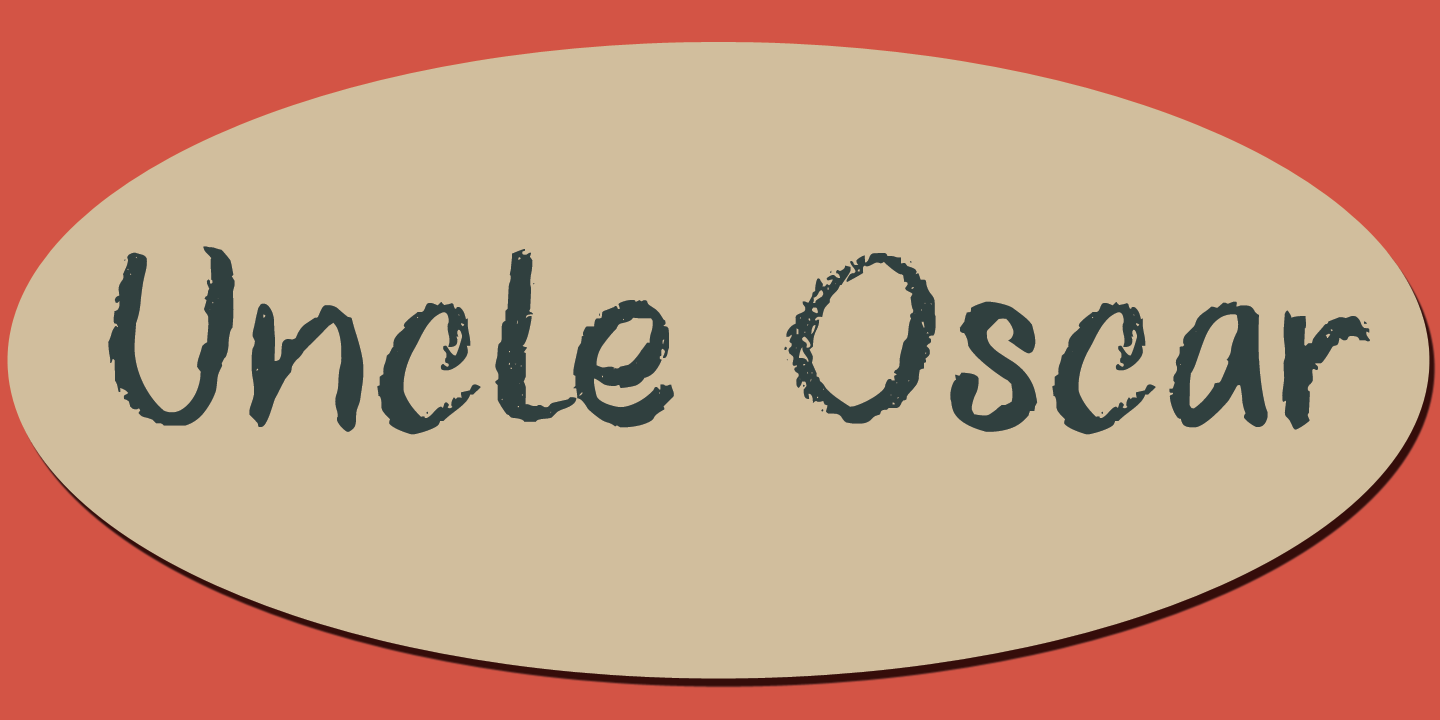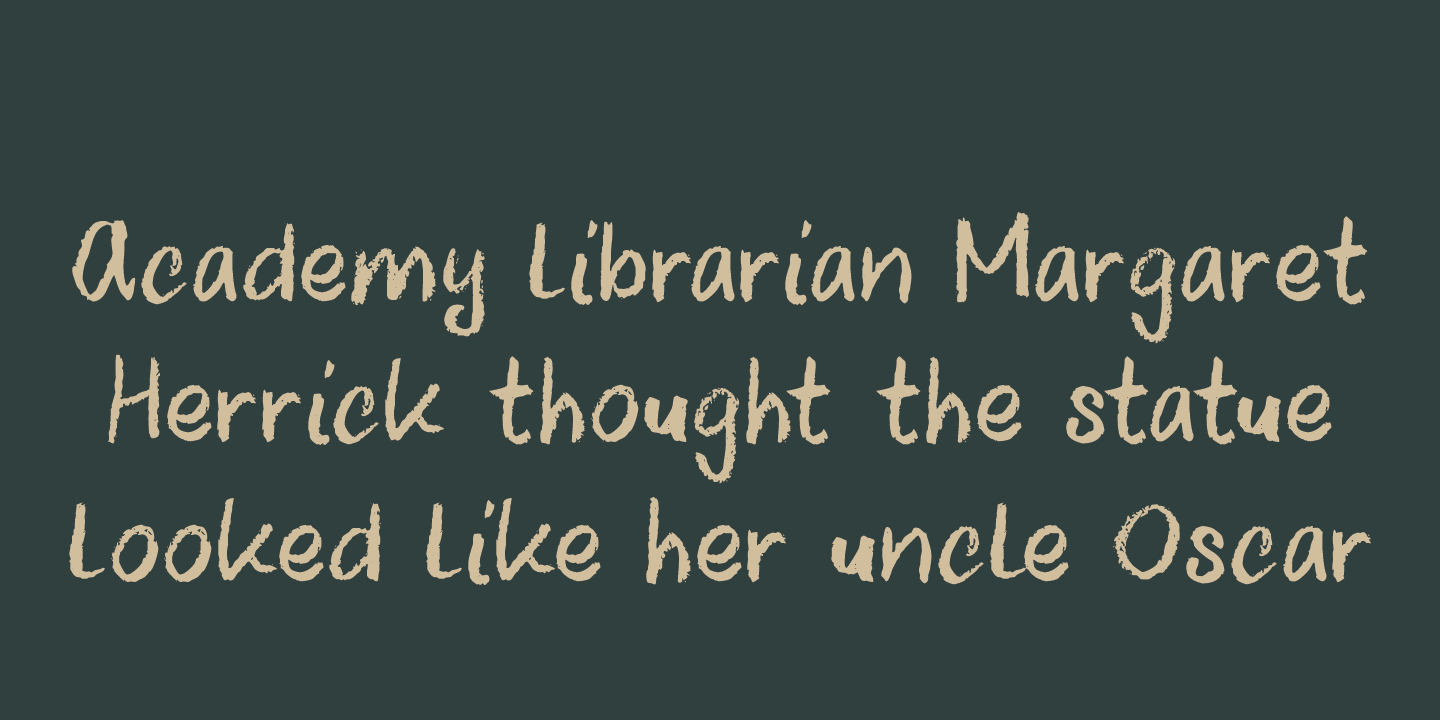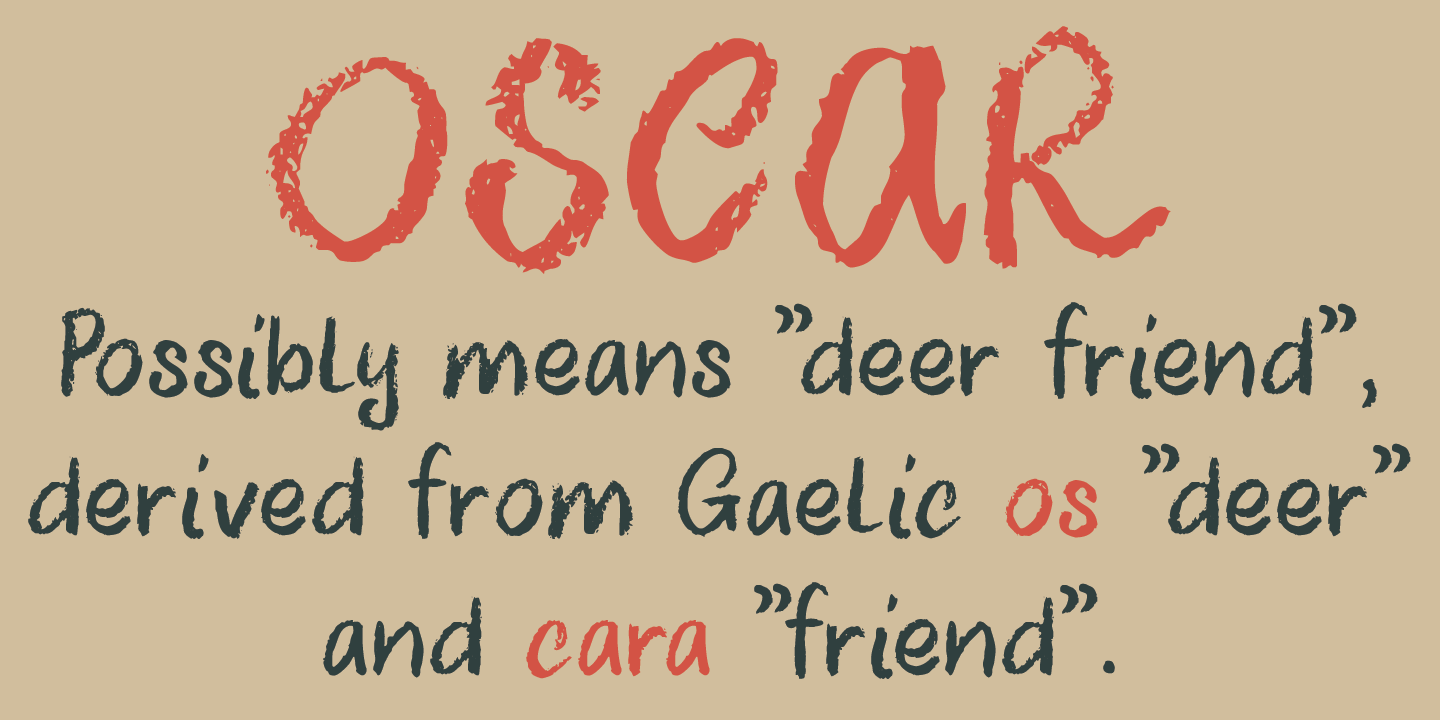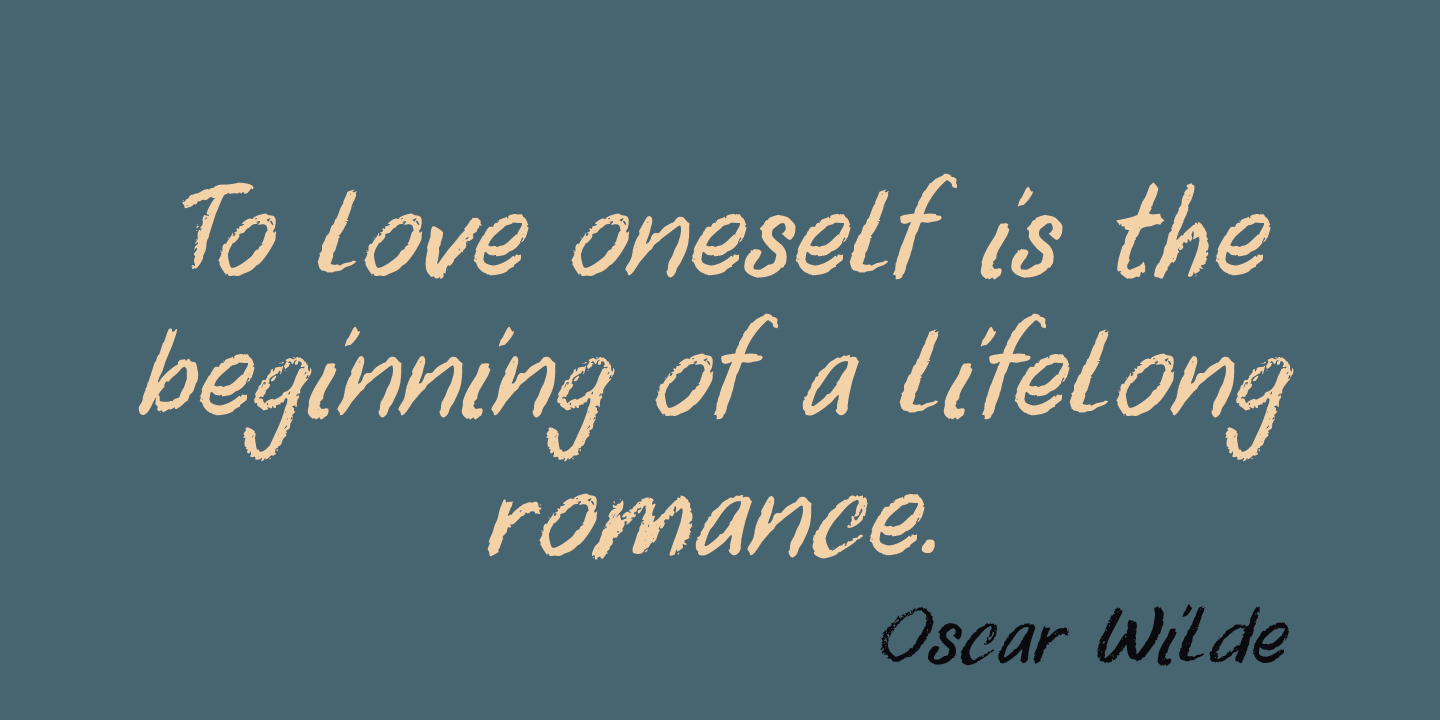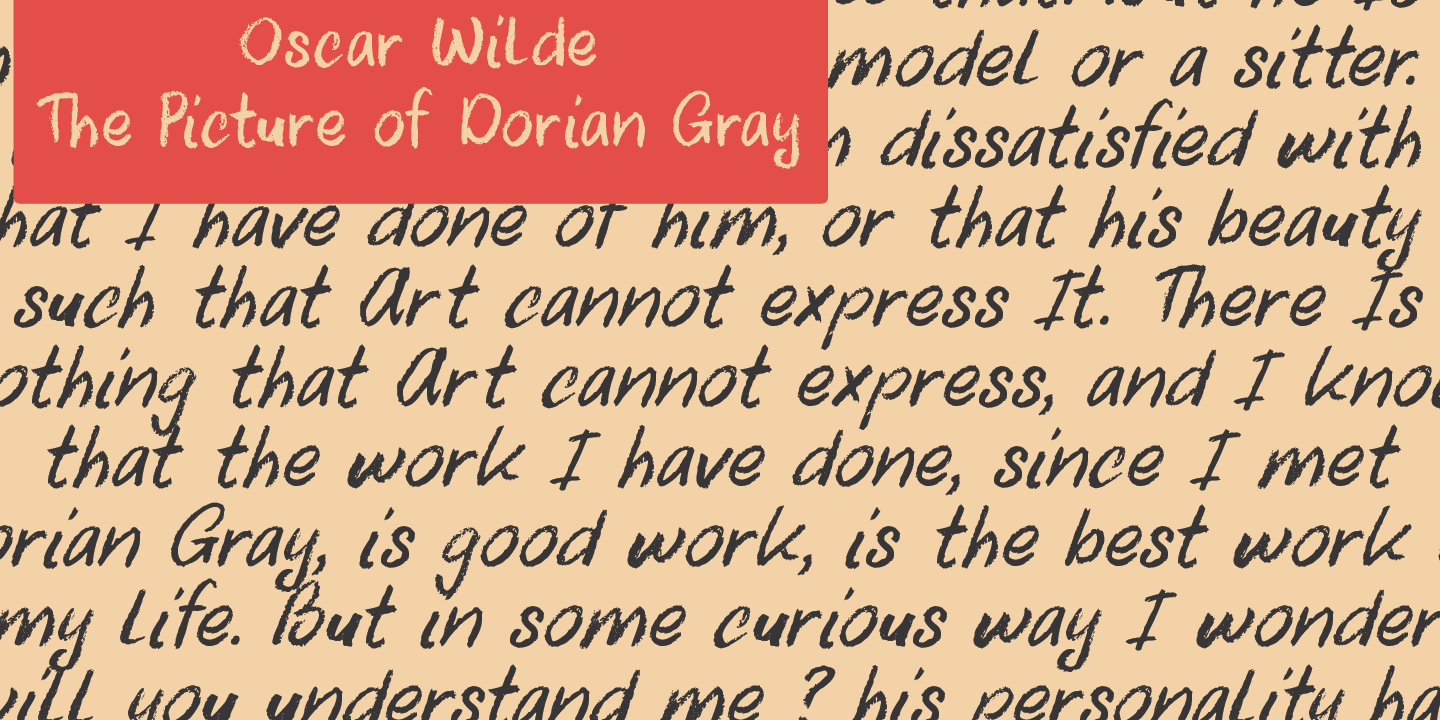
Uncle Oscar
I don't have an Uncle Oscar, so the font is not named after someone I know. The name just kind of stuck. Uncle Oscar is a pencil font, made with a black 'Lamy' pencil I took from my son Sam's pencil box. It is a little rough, but very legible and comes in Regular and Italic. Of course, Uncle Oscar speaks a lot of languages.